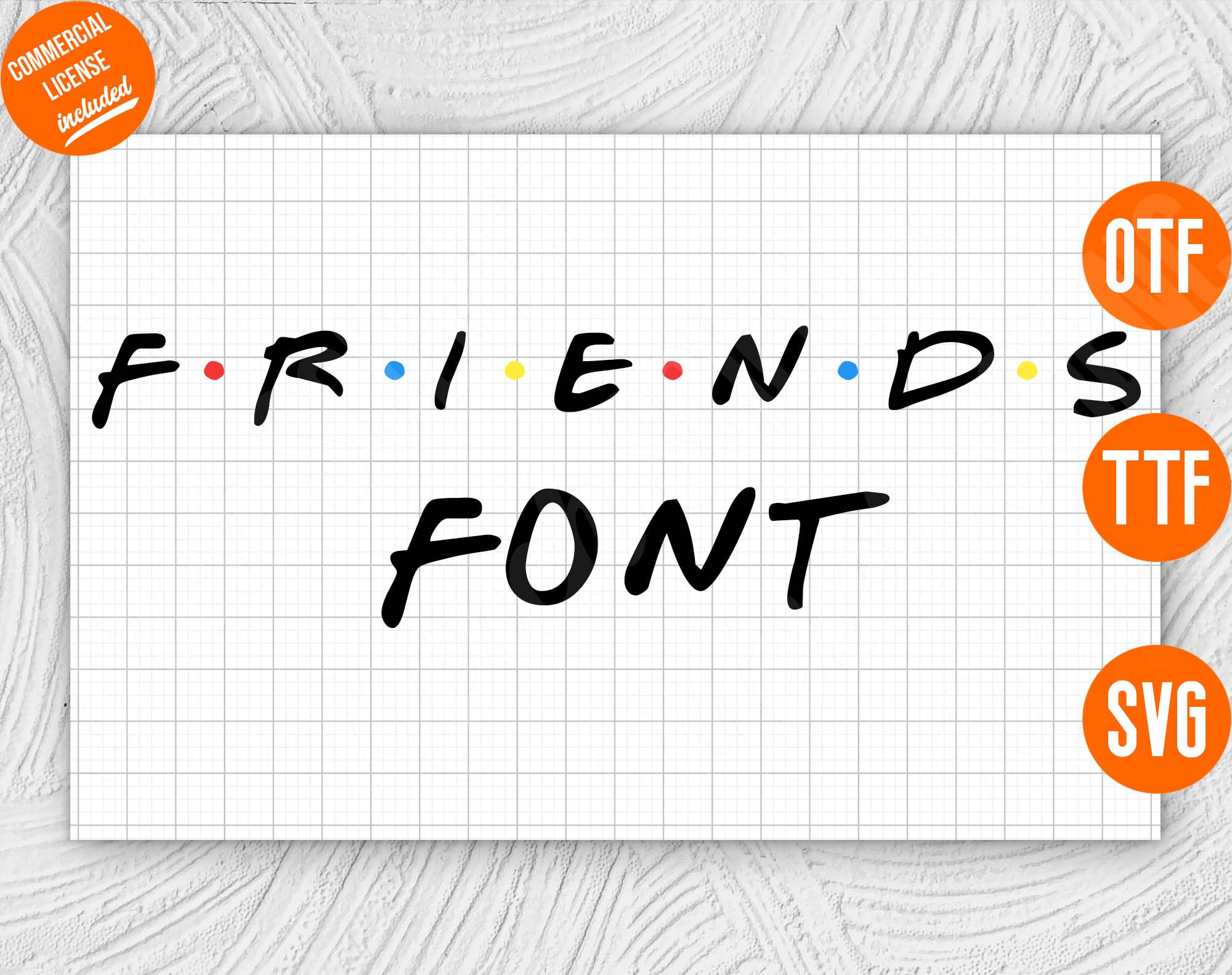
Free Friends Font For Cricut - Once downloaded, you can use it to add text to your project in any size or. For commercial use, please contact me with some information about the project. Contact information can be found in. This font is free for personal use. There's no difference at all. Use these free friends fonts to recreate the logo in your own designs or apparel. Here are some creative ideas. To save you time, i've created a font called friends that looks exactly like the one on the show. The friends font is available on cricut for users to download for free.
For commercial use, please contact me with some information about the project. Once downloaded, you can use it to add text to your project in any size or. This font is free for personal use. Here are some creative ideas. The friends font is available on cricut for users to download for free. Contact information can be found in. To save you time, i've created a font called friends that looks exactly like the one on the show. Use these free friends fonts to recreate the logo in your own designs or apparel. There's no difference at all.
To save you time, i've created a font called friends that looks exactly like the one on the show. There's no difference at all. This font is free for personal use. Use these free friends fonts to recreate the logo in your own designs or apparel. The friends font is available on cricut for users to download for free. Here are some creative ideas. For commercial use, please contact me with some information about the project. Once downloaded, you can use it to add text to your project in any size or. Contact information can be found in.
To save you time, i've created a font called friends that looks exactly like the one on the show. There's no difference at all. Use these free friends fonts to recreate the logo in your own designs or apparel. Here are some creative ideas. This font is free for personal use.
There's no difference at all. Contact information can be found in. This font is free for personal use. Use these free friends fonts to recreate the logo in your own designs or apparel. To save you time, i've created a font called friends that looks exactly like the one on the show.
For commercial use, please contact me with some information about the project. Contact information can be found in. Use these free friends fonts to recreate the logo in your own designs or apparel. There's no difference at all. Here are some creative ideas.
The friends font is available on cricut for users to download for free. Contact information can be found in. Once downloaded, you can use it to add text to your project in any size or. For commercial use, please contact me with some information about the project. To save you time, i've created a font called friends that looks exactly.
Contact information can be found in. The friends font is available on cricut for users to download for free. There's no difference at all. Here are some creative ideas. To save you time, i've created a font called friends that looks exactly like the one on the show.
There's no difference at all. Use these free friends fonts to recreate the logo in your own designs or apparel. For commercial use, please contact me with some information about the project. Here are some creative ideas. This font is free for personal use.
FRIENDS SVG, Friends font svg, Friends alphabet svg, Friends letters
Use these free friends fonts to recreate the logo in your own designs or apparel. This font is free for personal use. There's no difference at all. To save you time, i've created a font called friends that looks exactly like the one on the show. The friends font is available on cricut for users to download for free.
Friends Font SVG OTF TTF Friends Tv Show Letters Numbers Dots Etsy
The friends font is available on cricut for users to download for free. Use these free friends fonts to recreate the logo in your own designs or apparel. Here are some creative ideas. This font is free for personal use. For commercial use, please contact me with some information about the project.
10++ Friends font for cricut free ideas in 2021 This is Edit
There's no difference at all. Here are some creative ideas. For commercial use, please contact me with some information about the project. Contact information can be found in. Use these free friends fonts to recreate the logo in your own designs or apparel.
10++ Friends font for cricut free ideas in 2021 This is Edit
To save you time, i've created a font called friends that looks exactly like the one on the show. Once downloaded, you can use it to add text to your project in any size or. The friends font is available on cricut for users to download for free. Here are some creative ideas. For commercial use, please contact me with.
Here Are Some Creative Ideas.
Use these free friends fonts to recreate the logo in your own designs or apparel. The friends font is available on cricut for users to download for free. There's no difference at all. This font is free for personal use.
To save you time, i've created a font called friends that looks exactly like the one on the show. For commercial use, please contact me with some information about the project. Contact information can be found in.